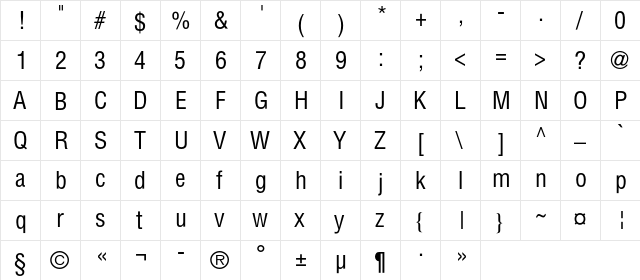
AGLettericaCondensedC Regular Font Preview
AGLettericaCondensedC Regular
Design Context for AGLettericaCondensedC Typeface
AGLettericaCondensedC offers clean, dependable letterforms without strong stylistic allegiance, making it a practical choice for designers who need flexibility. The condensed width makes it efficient for tight spaces without sacrificing legibility.